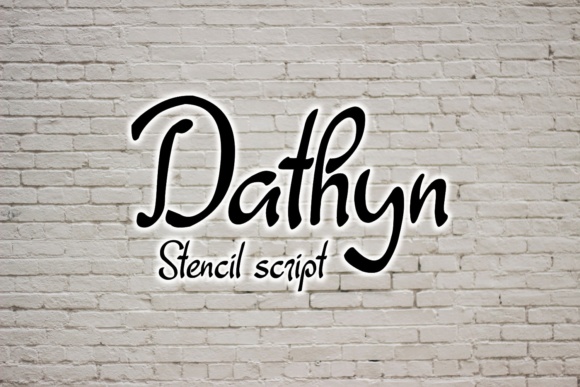
Introducing Dathyn Font, a captivating and innovative addition to your font collection. Created by the talented Digital Typeface Studio, this unique stencil script font is designed to captivate and inspire. With its handwritten calligraphy style and distinct lack of closed loops on the characters, Dathyn allows you to unleash your creativity and craft truly original designs like never before.
Dathyn Font stands out from the crowd with its eye-catching and artistic appeal. Its script family effortlessly combines elegance and playfulness, making it perfect for a wide range of projects. Whether you're designing a logo, creating stunning social media graphics, or adding a personal touch to your invitations, Dathyn is the ideal choice to make your creations shine.
This font's distinctive feature lies in its lack of closed loops on the characters. This unique design element sets it apart from traditional script fonts, allowing you to express your individuality and stand out from the competition. By embracing Dathyn, you're embracing a truly innovative and one-of-a-kind font that will take your designs to new heights.
The versatility of Dathyn Font knows no bounds. Its captivating and distinctive style lends itself to a plethora of creative possibilities. From branding projects that demand a unique touch to advertisements that need to grab attention, Dathyn is the secret ingredient that will elevate your designs and leave a lasting impression.
Let your imagination run wild with Dathyn Font's endless potential. Its script family boasts a wide range of characters, including uppercase and lowercase letters, numbers, punctuation marks, and special glyphs. This comprehensive selection ensures that you have everything you need to bring your vision to life with ease.
Unleash your creativity and embark on a design journey like no other with Dathyn Font. Its captivating and unique stencil script style, coupled with its lack of closed loops, will set your designs apart from the rest. Elevate your projects with this innovative font and watch as it brings your vision to life in ways you never thought possible.